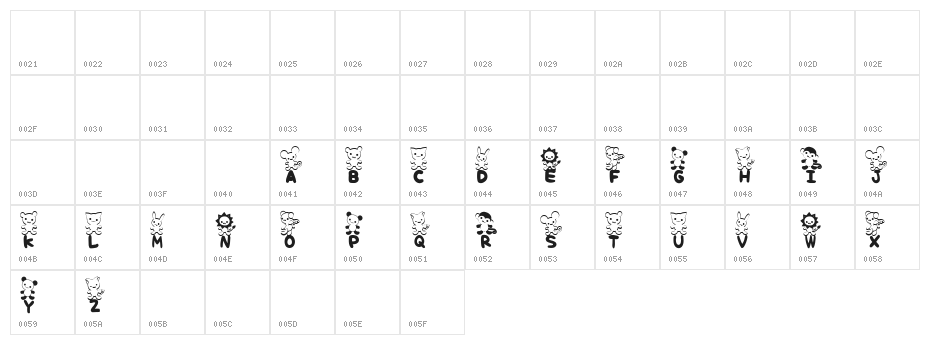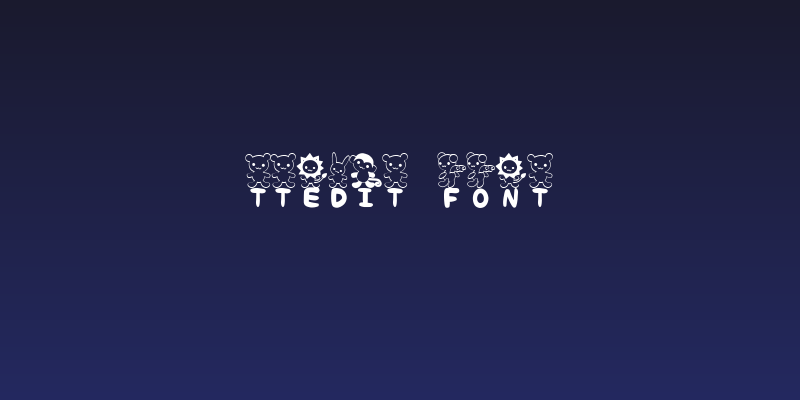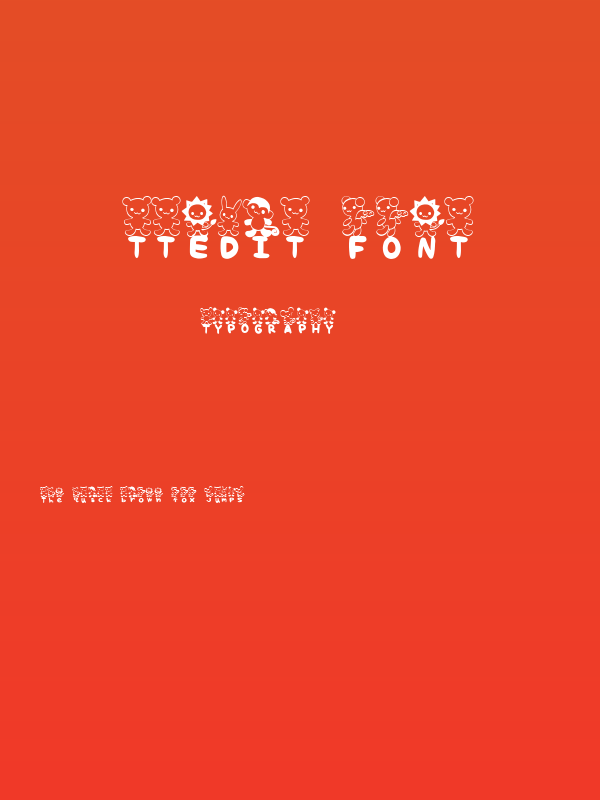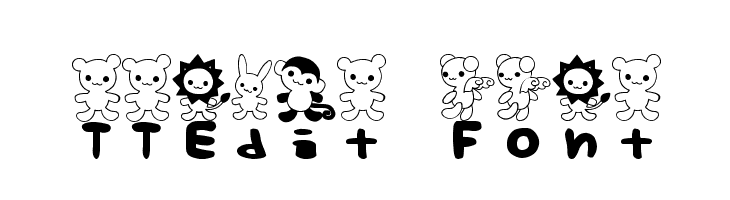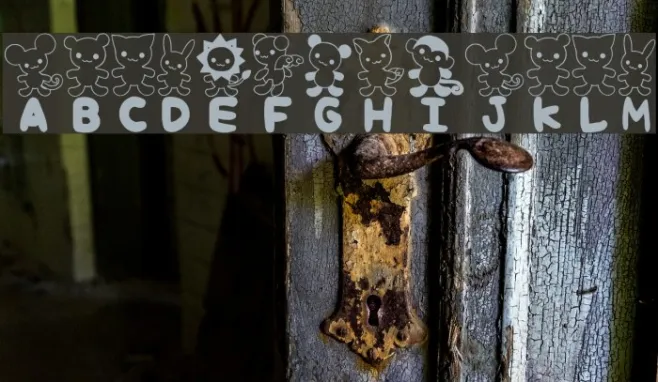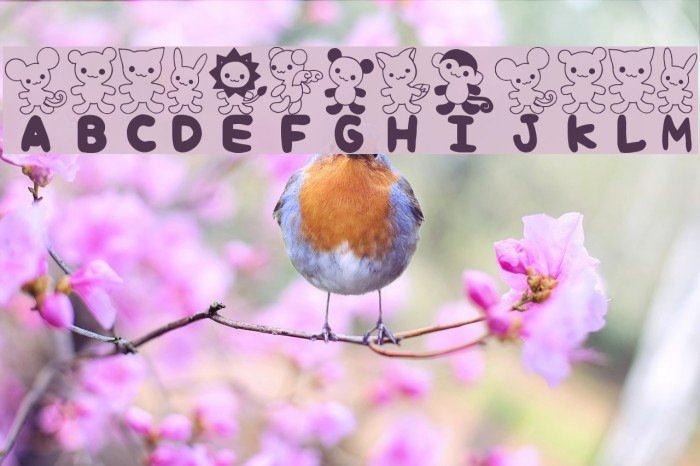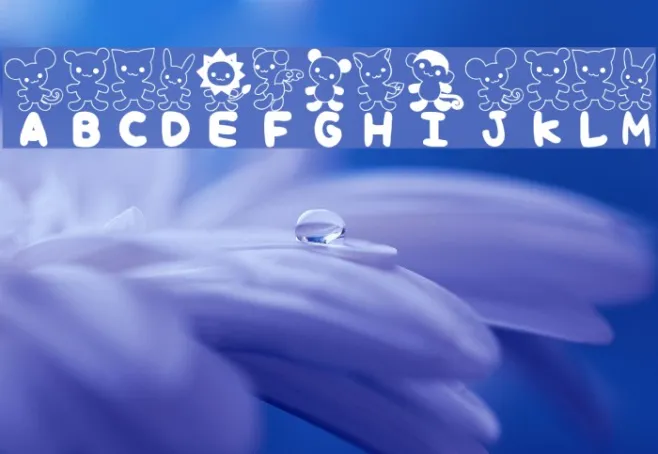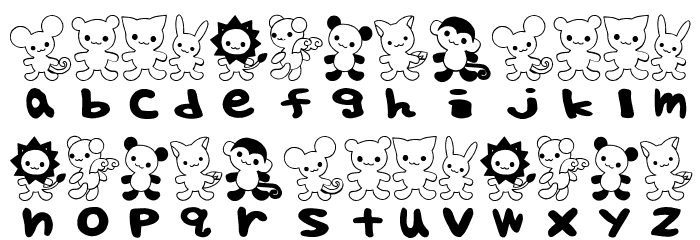
TTEdit Font Font
This playful and whimsical font features bold, rounded characters with a cartoonish style. Each letter is accompanied by a charming animal illustration, adding a unique and fun element to the design. The uppercase and lowercase letters maintain a consistent style, with smooth curves and a friendly appearance. The font's overall look is lively and engaging, making it perfect for children's materials or any project that requires a touch of creativity and joy. The characters are well-spaced, ensuring readability while maintaining the playful aesthetic.
| Overall Style | Playful, Whimsical |
| Use Case | Headlines, Logos, Children's materials |
| Proposed Projects | Ideal for children's books, educational materials, playful branding, and creative invitations. |